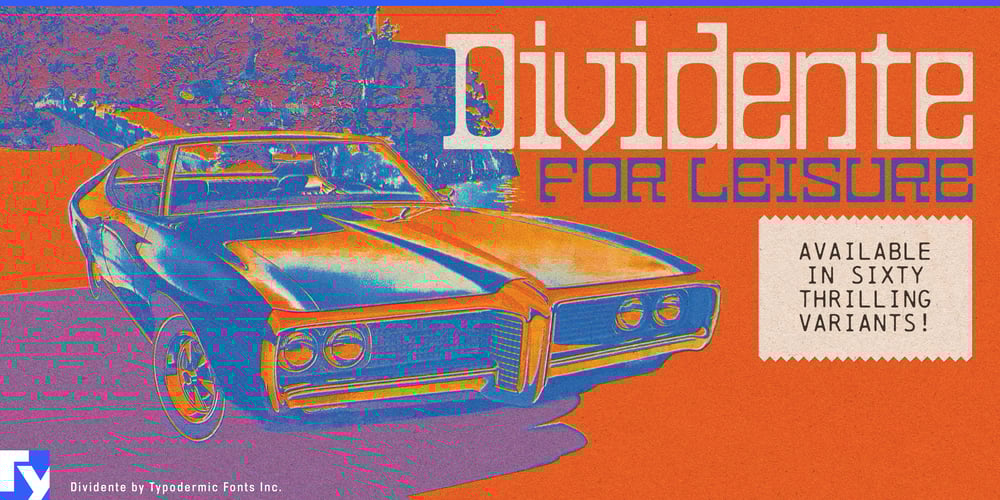
Dividente Font Family was designed by Ray Larabie and published by Typodermic. Dividente contains 60 styles and family package options. Dividente is a square display typeface infused with late 1960s-inspired style. Its rectangular exteriors are softened with subtly rounded corners, while the inner shapes showcase a superelliptical tension. This balance between structured geometry and flowing curves creates a bold yet inviting aesthetic. The ultra-tight spacing evokes the charm of vintage headlines, though increasing the tracking is recommended when legibility takes precedence over style.Straddling the line between innovative psychedelic design and polyester-fueled modern luxury, Dividente is part slab serif, part sans-serif, and all about style. The interplay between its rigid outer shapes and luxurious inner curves gives every message a distinctive voice. With ten weights ranging from the razor-sharp Thin to the hardy Black, Dividente is as versatile as it is striking. Three widths—Normal, Expanded, and Condensed—add even more flexibility, while the oblique styles for a touch of sophistication.Dividente supports most Latin-based languages and includes a wide range of currency symbols, making it an ideal choice for international projects. Unlike other rectangular typefaces that often feel cold and technological, Dividente radiates warmth and personality. Its organic, psychedelic style brings a unique visual punch to any design, offering a retro yet refreshingly modern aesthetic.